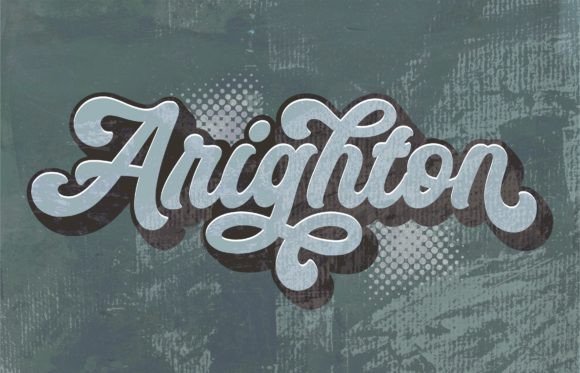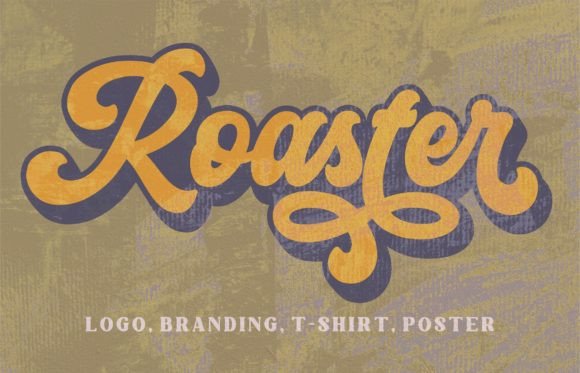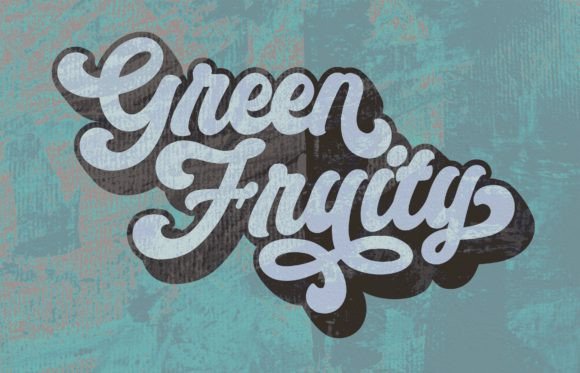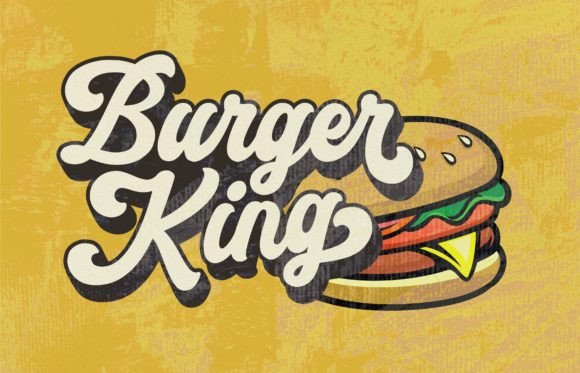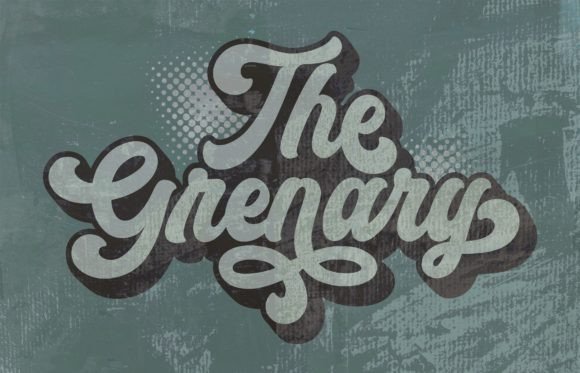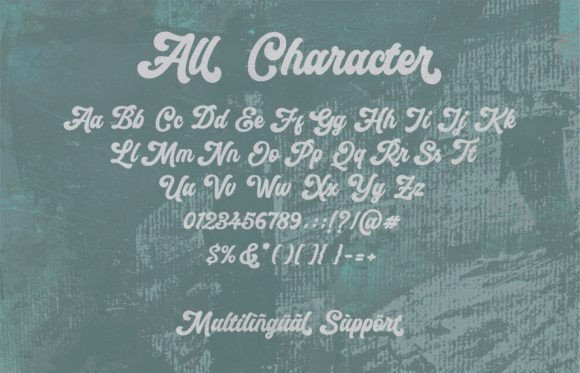
Introducing Blantik Font: Elevate Your Designs with Vintage Elegance
In the world of typography, few fonts capture the essence of vintage glamour as effortlessly as Blantik. This stunning script font is a masterclass in elegance, with its flowing curves and intricate flourishes evoking the sophistication of a bygone era. Whether you’re a designer, crafty DIY enthusiast, or simply someone who appreciates beautiful typography, Blantik is sure to become your go-to font for adding a touch of class to any project.
The Charm of Blantik
Blantik’s unique charm lies in its perfect blend of vintage flair and modern versatility. Its elegant letterforms are reminiscent of classic calligraphy, with delicate swashes and ornate details that add a level of refinement to any design. The font’s flowing script style makes it ideal for creating beautiful, eye-catching headlines, while its clear legibility ensures that it remains readable even at smaller sizes.
Key Features of Blantik
So, what makes Blantik such a versatile and effective font? Here are some of its key features:
- Elegant Script Style: Blantik’s flowing script style is perfect for creating beautiful, eye-catching headlines and titles.
- Intricate Flourishes: The font’s intricate flourishes and swashes add a level of refinement and sophistication to any design.
- Clear Legibility: Despite its ornate details, Blantik remains clear and readable even at smaller sizes.
- Vintage Flair: Blantik’s vintage-inspired design makes it perfect for creating designs that evoke a bygone era.
In conclusion, Blantik is a truly exceptional font that offers a unique blend of vintage flair and modern versatility. Its elegant script style, intricate flourishes, and clear legibility make it perfect for a wide range of creative projects, from invitations and branding to editorial design and DIY crafts. Whether you’re a designer, crafty DIY enthusiast, or simply someone who appreciates beautiful typography, Blantik is sure to become your go-to font for adding a touch of class and sophistication to any project.